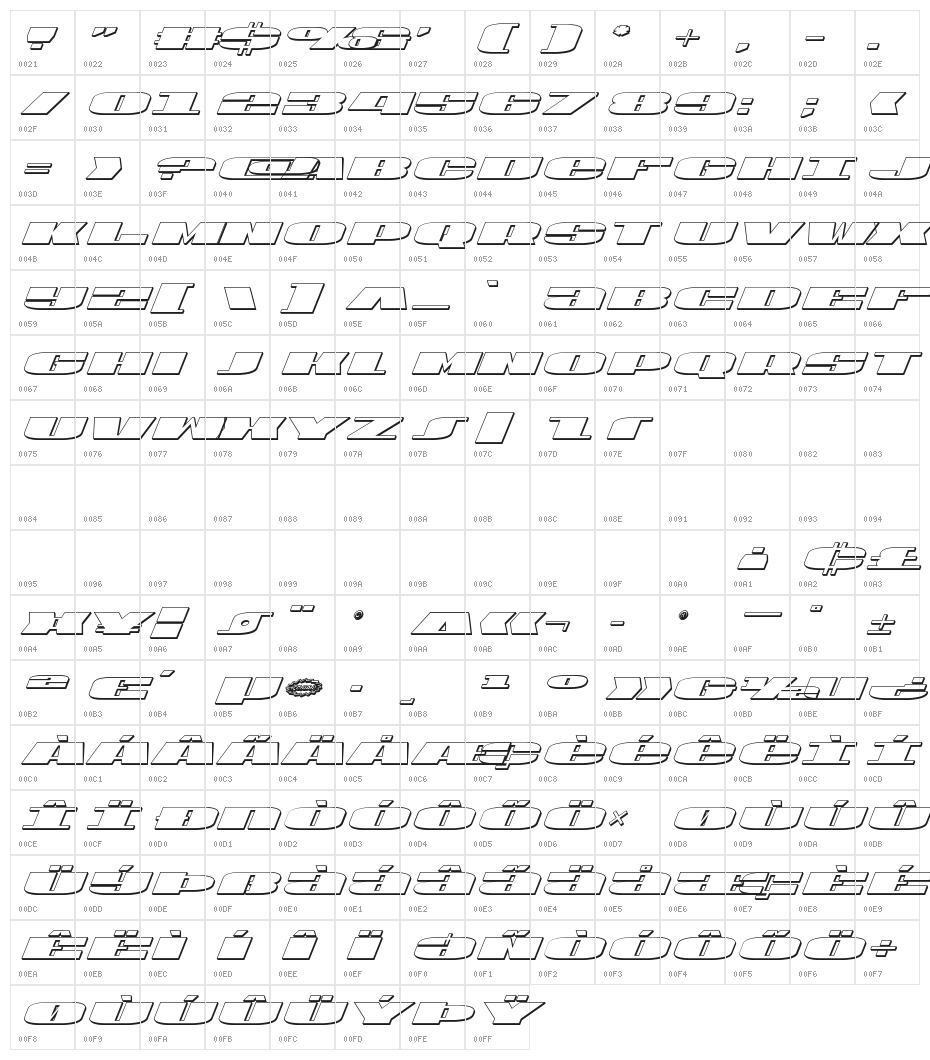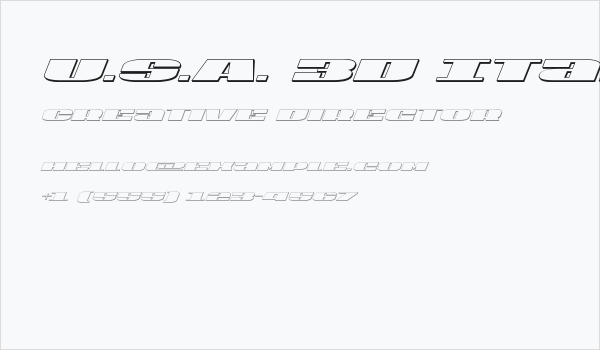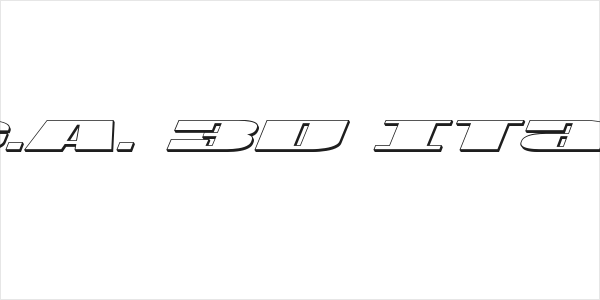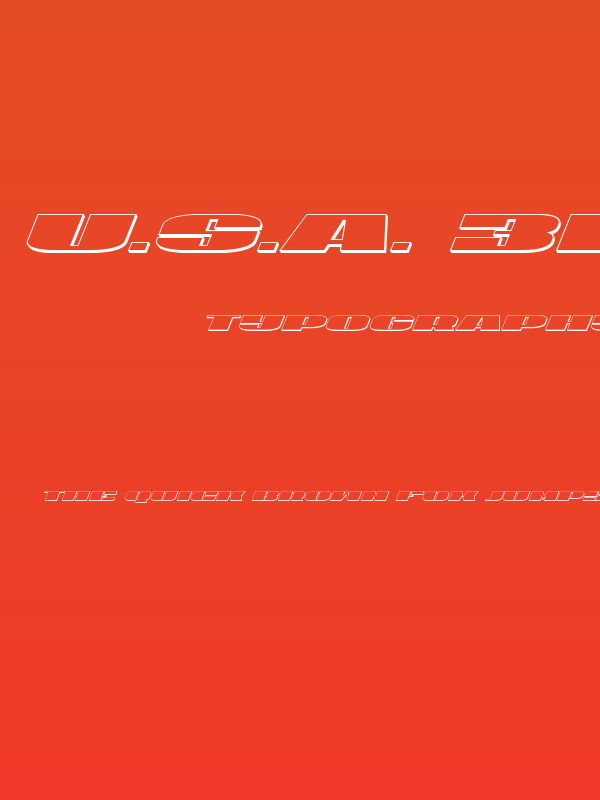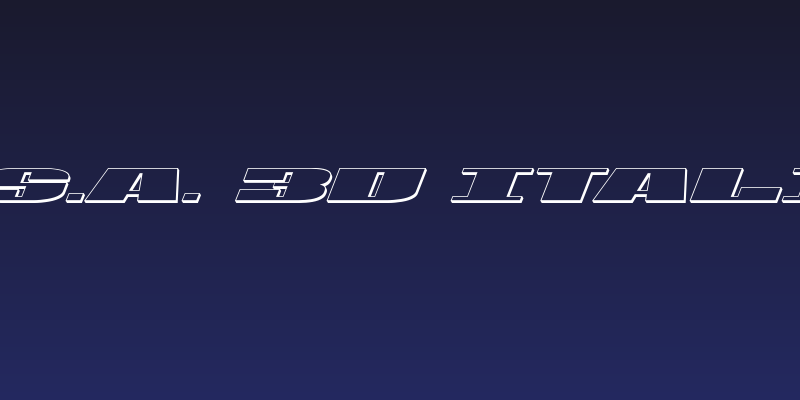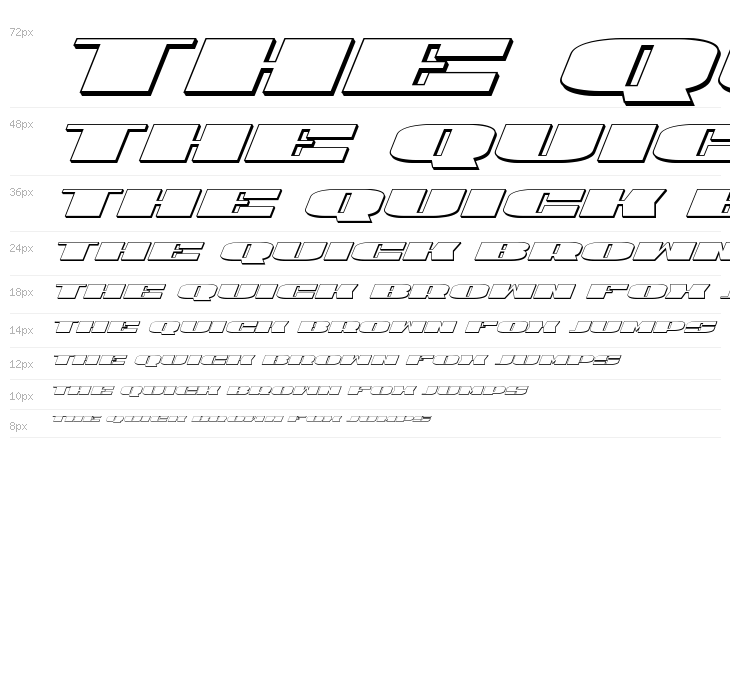
U.S.A. 3D Italic Font
U.S.A. 3D Italic Description
This font features a bold, three-dimensional style with an italic slant, giving it a dynamic and futuristic appearance. The characters are outlined, creating a hollow effect that enhances the 3D illusion. Each letter and number is designed with sharp angles and clean lines, contributing to a modern and edgy aesthetic. The font maintains a consistent width across characters, ensuring uniformity and balance. The spacing between characters is relatively tight, which helps in maintaining a cohesive look. This font is particularly eye-catching and is likely to stand out in any design project.
| Proposed Projects | Ideal for use in technology-themed designs, video game titles, futuristic branding, and eye-catching posters. |